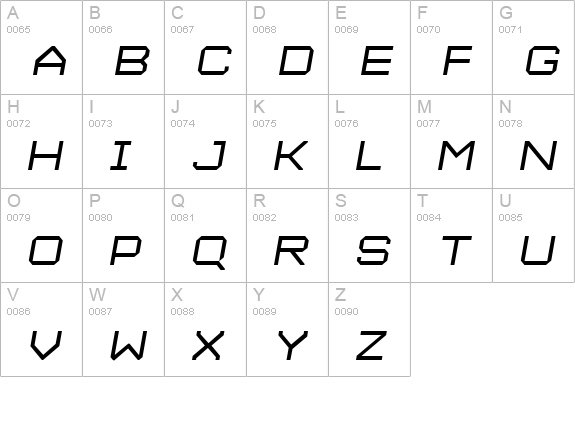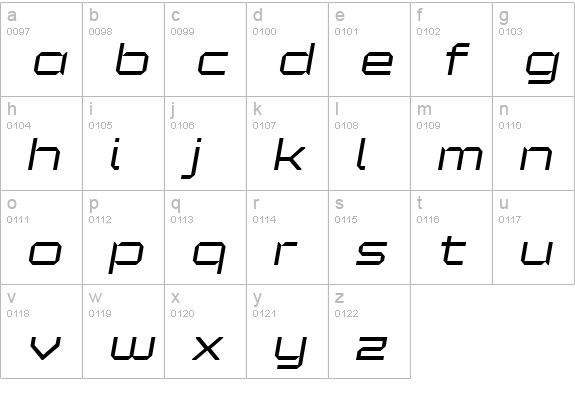
Maetl LightOblique is a visually stunning font that effortlessly merges elegance and modernity. Its sleek and slanted design adds a touch of sophistication to any project, making it perfect for both digital and print applications. The light weight of the font gives it a delicate and refined appearance, while its oblique style adds a subtle sense of movement and dynamism. This font is not only visually appealing but also highly versatile, making it suitable for a wide range of design projects. Whether you are creating a logo, designing a website, or crafting a brochure, Maetl LightOblique will elevate your work to new heights. Its clean and legible letterforms ensure readability across various sizes and mediums, guaranteeing a seamless user experience. One of the most enticing aspects of Maetl LightOblique is that it is available for free download at FontsMarket.com. This means that you can unleash your creativity without any financial constraints, allowing you to experiment and explore the font's potential to the fullest. Its availability as a free resource makes it an invaluable asset for designers, students, and anyone else looking to add a touch of sophistication to their projects. Don't miss out on the opportunity to enhance your designs with the mesmerizing and versatile Maetl LightOblique font. Download it for free at FontsMarket.com and experience the seamless blend of elegance and modernity that this font offers.